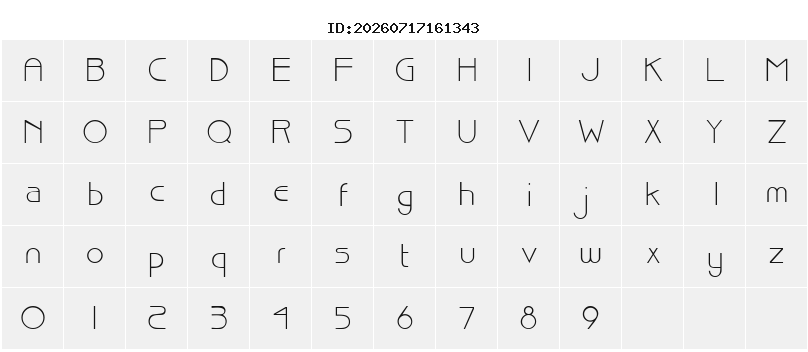
BisonDB Preview
• Font Name: BisonDB
• Font ID: Altsys Fontographer 4.0.3 BisonDB Normal
• Full Font Name: BisonDB Normal
• Version: Altsys Fontographer 4.0.3 8.9.1994
• PostScript Name: BisonDBNormal
• Character Count: 205
About BisonDB.ttf
BisonDB.ttf is a modern, elegant sans-serif font designed for ultimate readability and visual harmony. Perfect for branding, headlines, web design, and print materials.